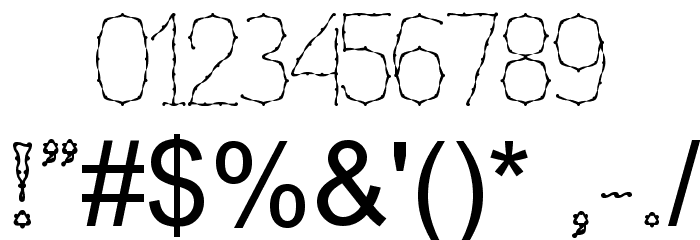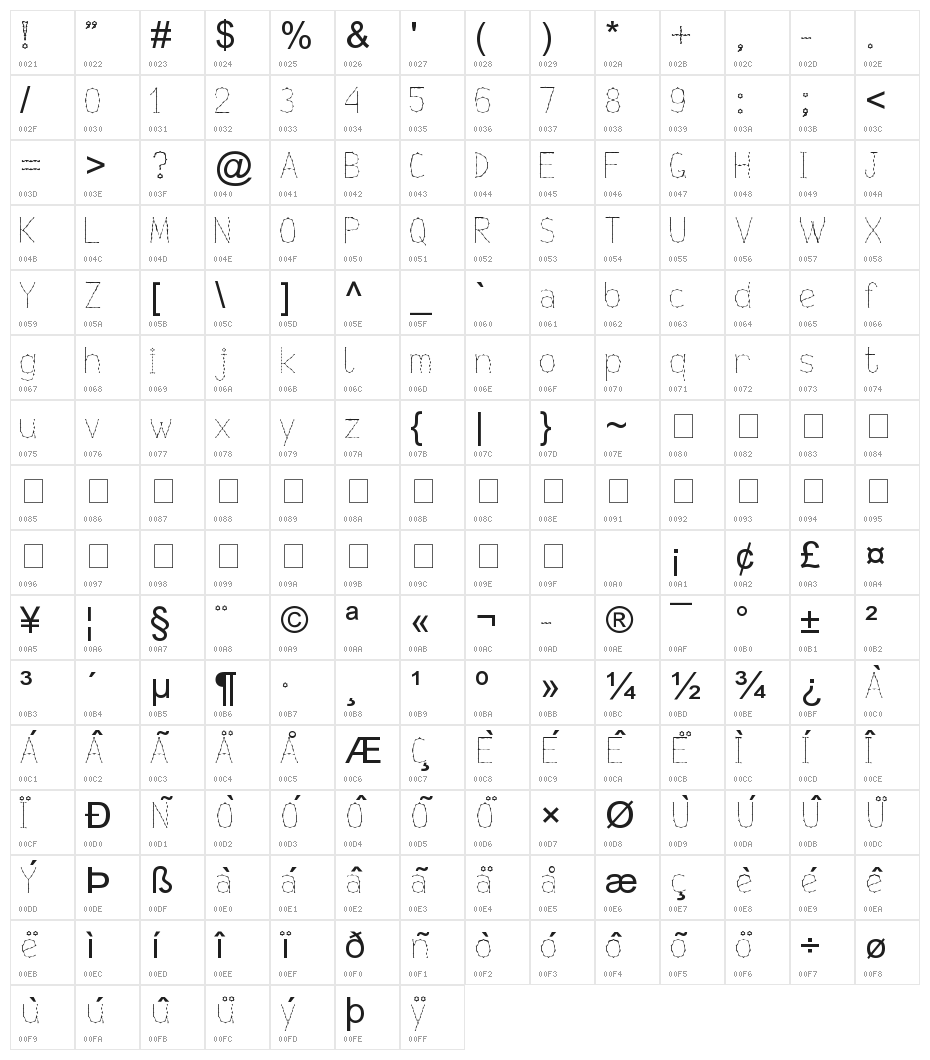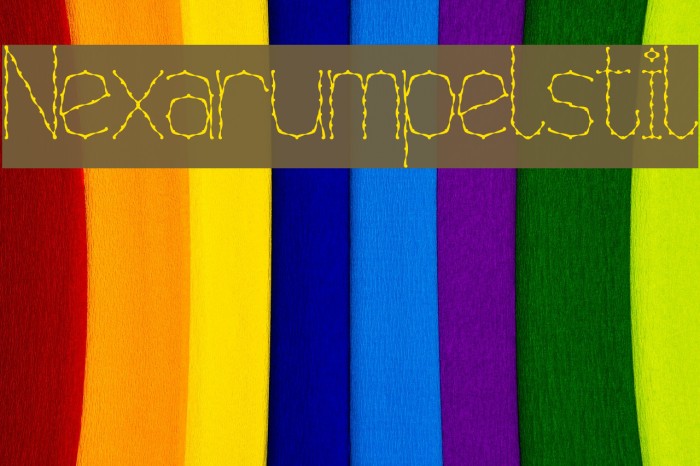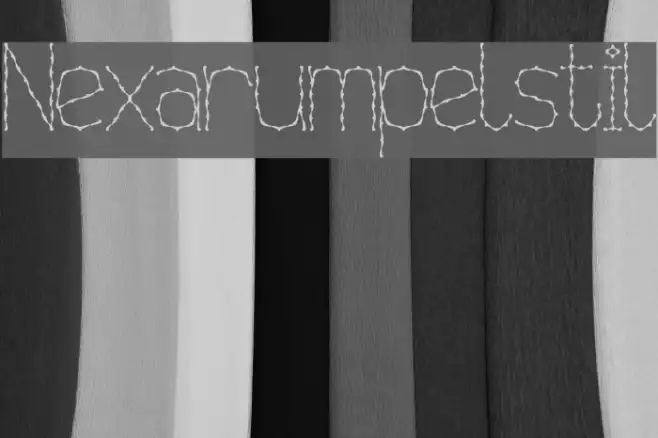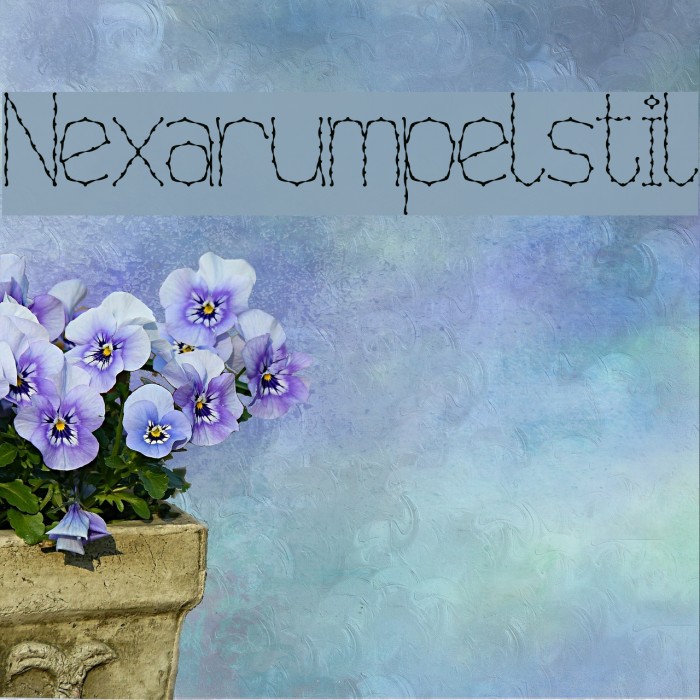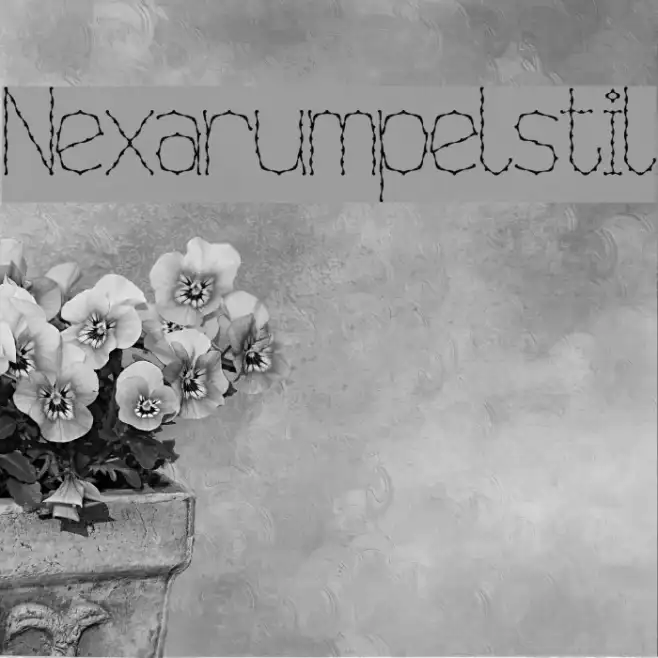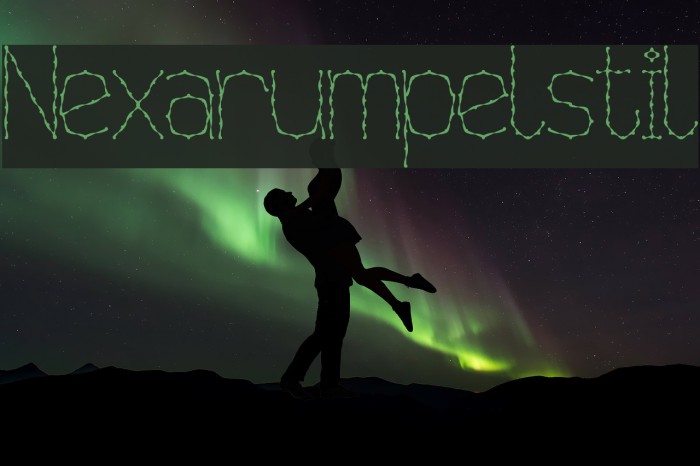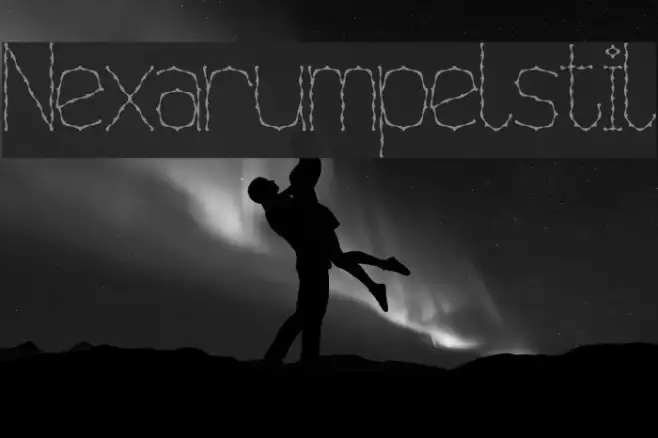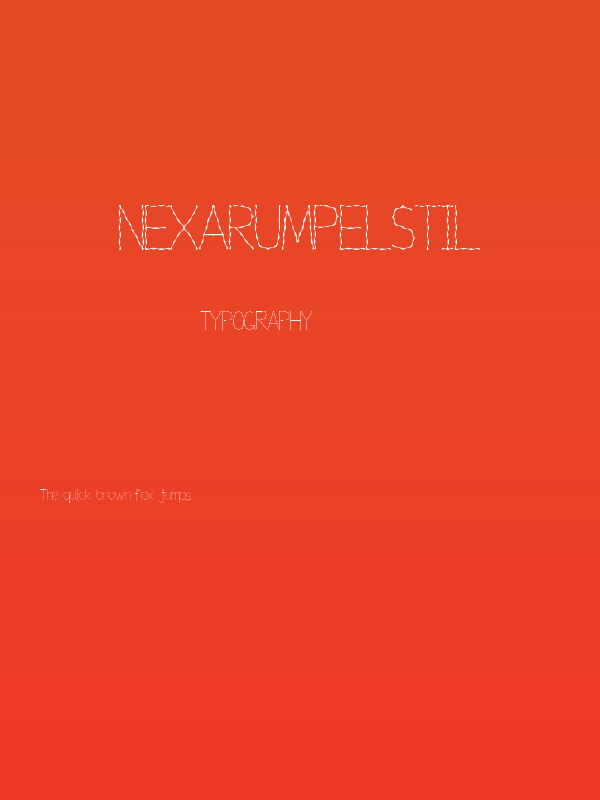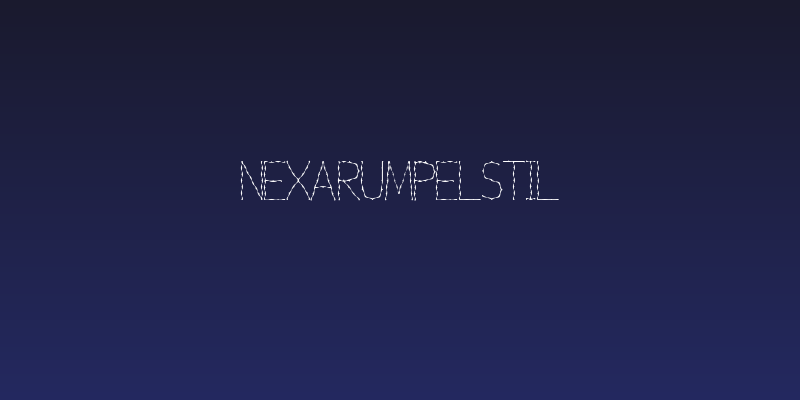
Nexarumpelstil Font
Nexarumpelstil Description
This font features a unique, decorative style that resembles twisted vines or barbed wire, giving it a distinct and edgy appearance. The characters are crafted with irregular, jagged lines that create a sense of movement and texture. This design choice makes the font stand out, adding a touch of creativity and boldness to any project. The uppercase and lowercase letters maintain a consistent style, while the numerals and special characters complement the overall aesthetic. The font's intricate detailing suggests a hand-drawn quality, making it suitable for projects that require a personal or artistic touch.
| Proposed Projects | Ideal for album covers, posters, Halloween-themed designs, or any project needing a bold, artistic flair. |